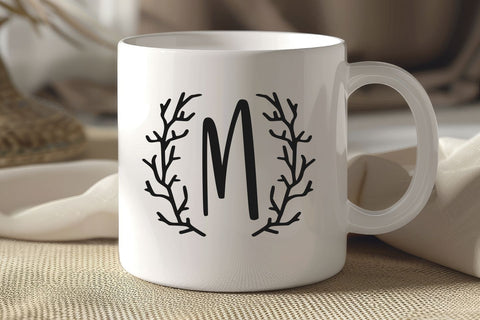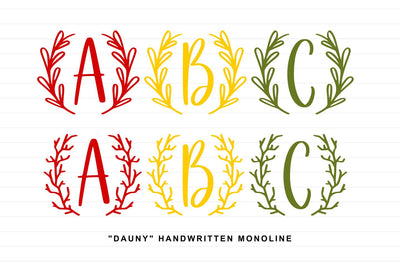
Dauny Monogram
Dauny is a cute handwritten monogram font created to add a sweet and personal signature to your designs. Each letter is drawn with soft curves and friendly proportions, making it ideal for initials and short names that need to feel warm and charming. The monogram style keeps the look compact while still carrying a playful handwritten character.
Perfect for logos, labels, stationery, wedding details, social media marks, and personal branding, Dauny helps turn simple initials into memorable accents. If you’re looking for a monogram font that feels joyful, gentle, and handmade, Dauny brings that lovely touch with ease.